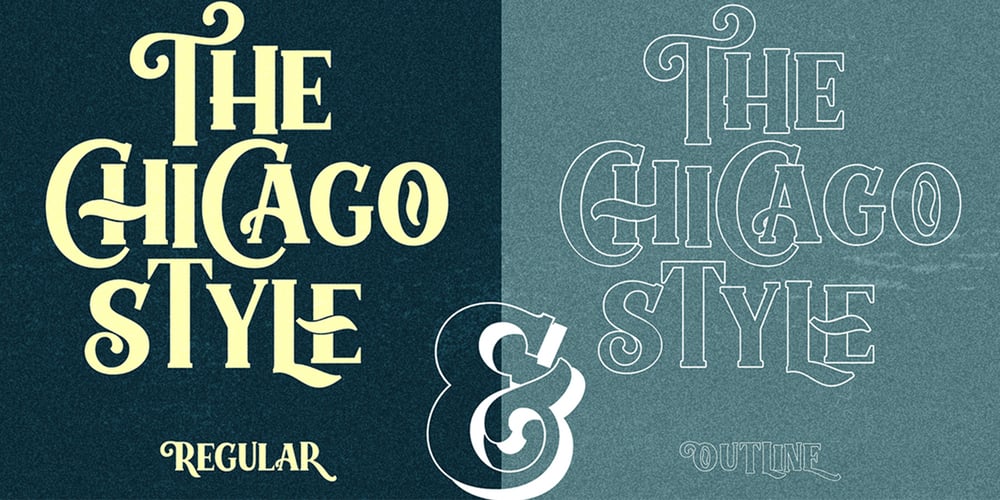
Chellora Font Family was designed by Akmal Yusar and published by Picatype. Chellora contains 3 styles and family package options. I am very happy to finally release Chellora Typeface. Chellora is a bevelled, layered font which gives simple effects to letters. The effect allows it to be plated, giving it a smoother and smoother appearance. Chellora comes with 3 different styles: Regular, Shadow, Filled Outline, Chellora is a bold Sans that is perfect for Logos, Signage, Apparel, Headlines, Etc. This typeface is a great addition to any collection because it saves time with post-production effects, this allows you to easily measure effects. To enable the OpenType Stylistic alternates, you need a program that supports OpenType features such as Adobe Illustrator CS, Adobe Indesign & CorelDraw X6-X7, Microsoft Word 2010 or later versions. How to access all alternative characters, using Windows Character Map with Photoshop: https://www.youtube.com/watch?v=Go9vacoYmBw How to access all alternative characters using Adobe Illustrator: https://www.youtube.com/watch?v=XzwjMkbB-wQ Chellora Typeface is coded with PUA Unicode, which allows full access to all the extra characters without having special designing software. Mac users can use Font Book , and Windows users can use Character Map to view and copy any of the extra characters to paste into your favorite text editor/app. Thanks so much for looking and please let me know if you have any questions.